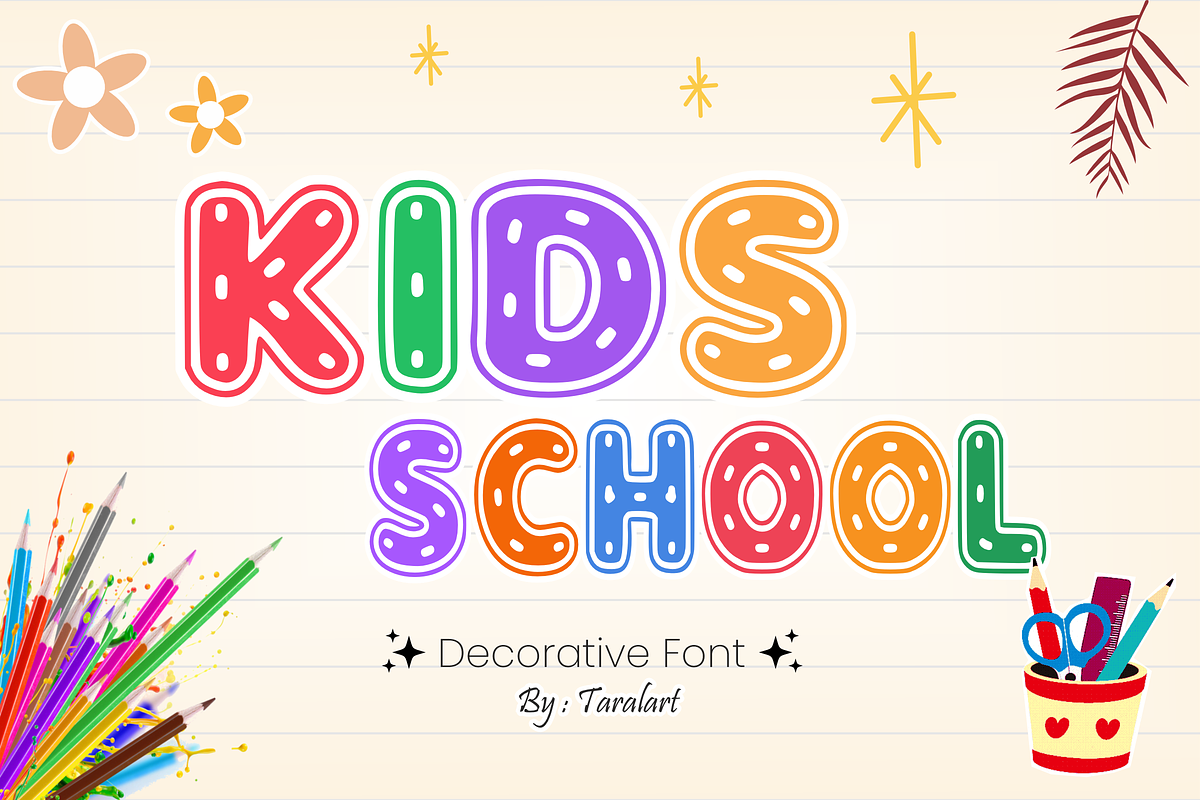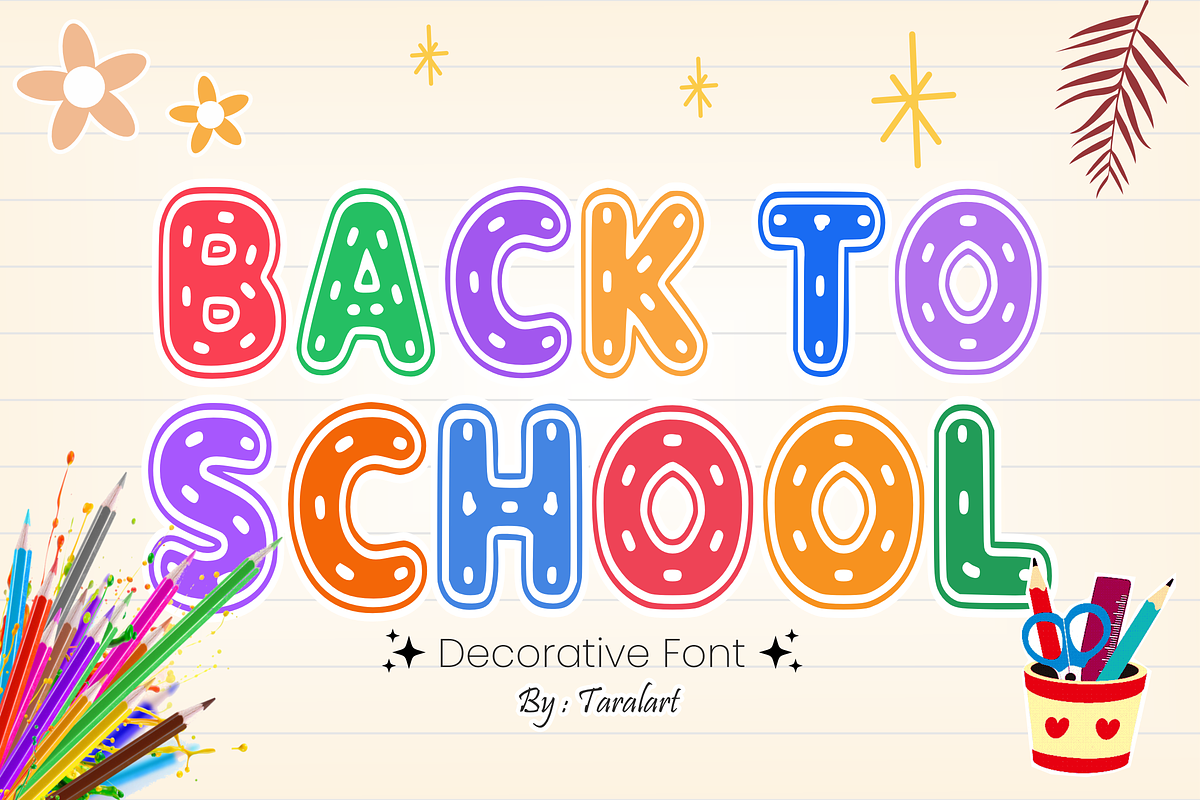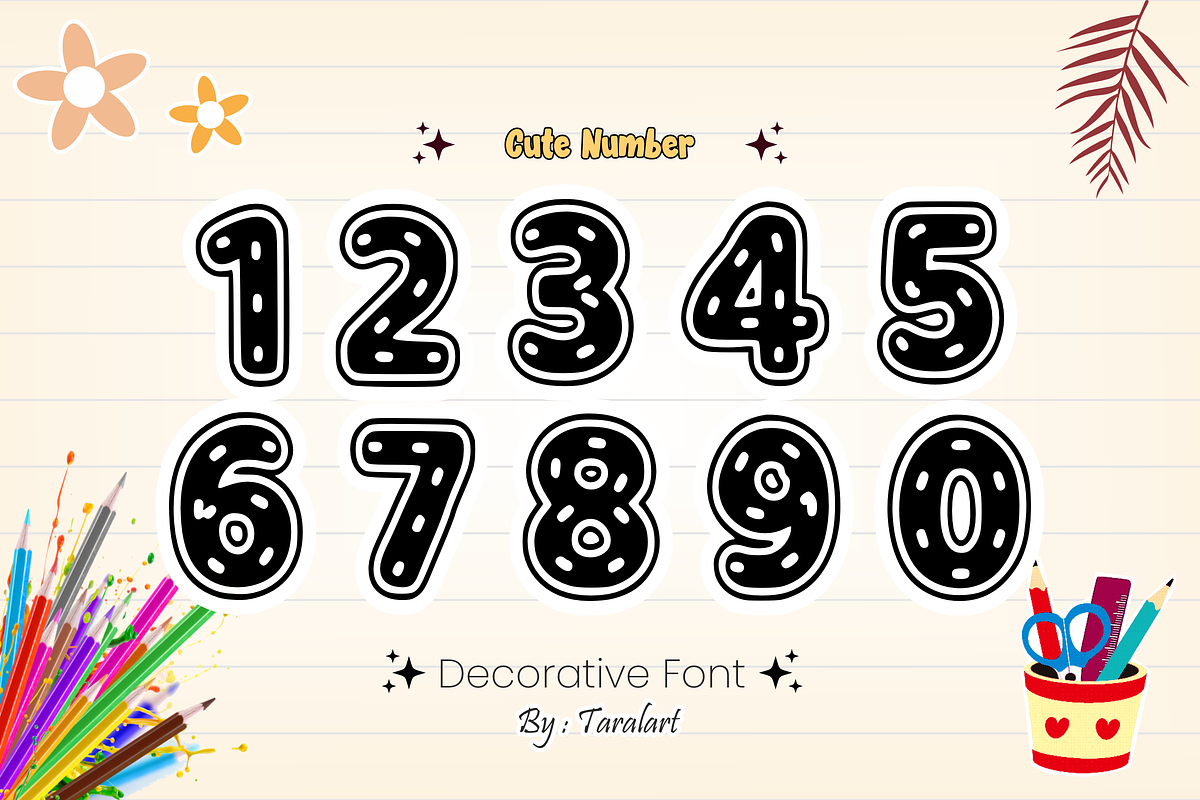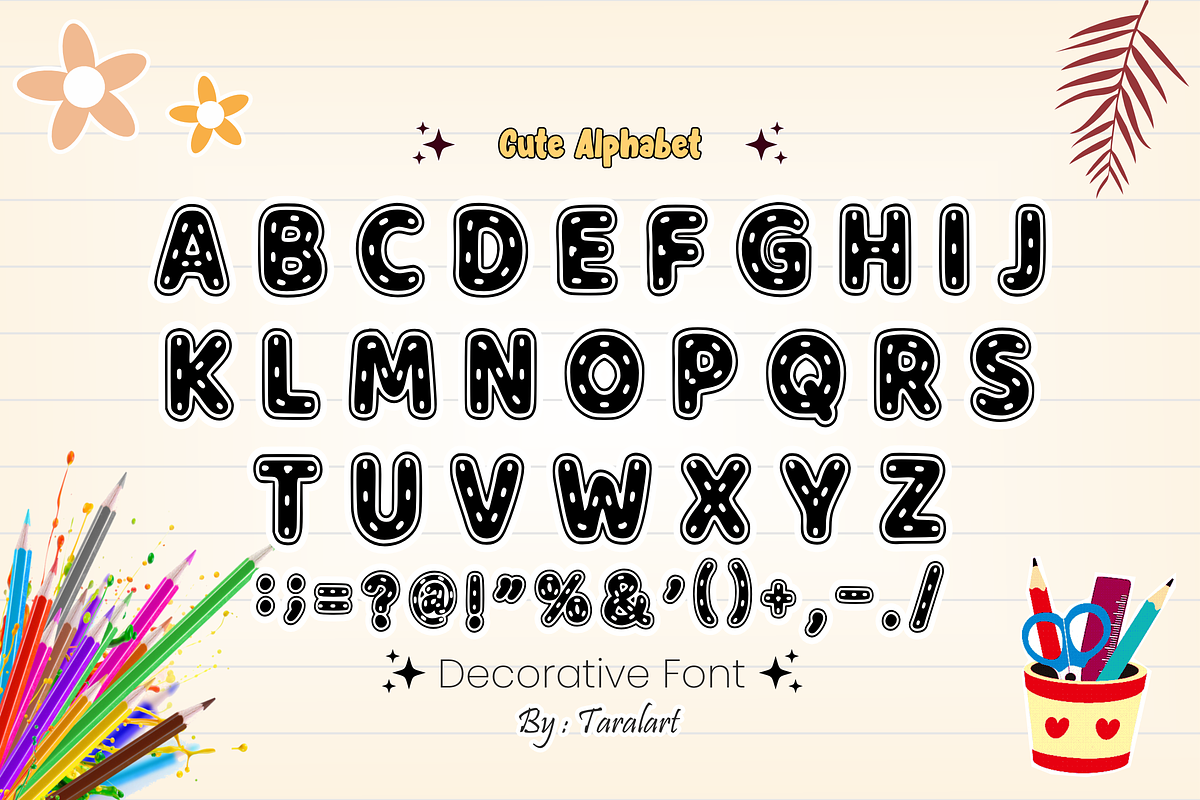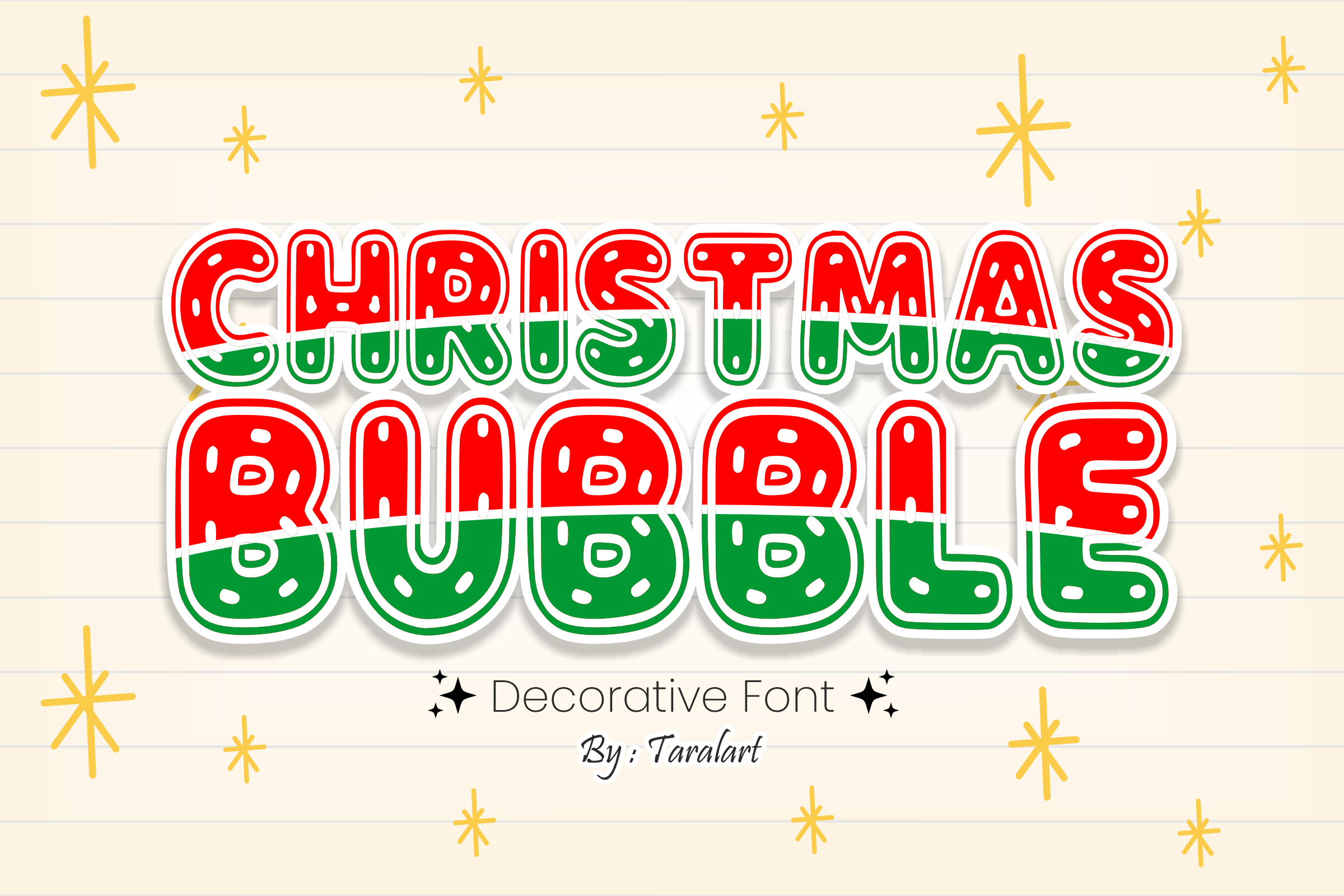
CHRISTMAS BUBBLE - Holiday Font
CHRISTMAS BUBBLE - Playful Holiday Display Font
Get ready to make your holiday designs pop with Christmas Bubble! This ultra-chunky, joyful display font brings a fun, balloon-like roundness to your text, featuring a whimsical winter vibe that’s absolutely perfect for all your festive creations.
Designed with crafters and creators in mind, Christmas Bubble masterfully blends a playful comic aesthetic with clean legibility. It is highly versatile, deeply expressive, and fully optimized for flawless performance across digital cutting machine tools (like Cricut) and professional seasonal print workflows.
All-Caps Character Set (Chunky, happy holiday uppercase letters)
Numbers & Basic Punctuation (Essential, simple symbols included)